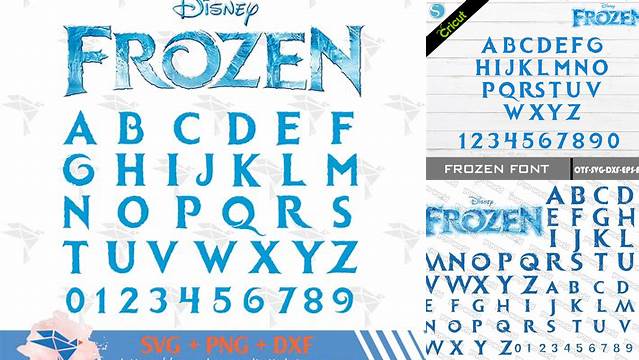
Hey everyone! Are you looking to add a magical, icy touch to your projects? Frozen Font SVGs are the perfect way to do it! Whether you're creating invitations for a winter-themed party, designing graphics for your website, or just want to add a bit of frosty flair to your crafts, we've got you covered. In this guide, we'll explore everything you need to know about Frozen Font SVGs, including where to find them, how to use them, and even some creative ideas to get you started. So, grab a cup of hot cocoa and let's dive in!
What is a Frozen Font SVG?
Let's start with the basics. What exactly is a Frozen Font SVG? SVG stands for Scalable Vector Graphics, which means these fonts are created using vector graphics. Unlike traditional raster images (like JPEGs or PNGs), SVGs can be scaled to any size without losing quality. This makes them perfect for everything from small web icons to large print posters. But what makes a font "Frozen"? Well, these fonts typically have a design that evokes the feeling of ice, snow, and winter. Think of icy textures, snowflake accents, and elegant, flowing lines that resemble frozen crystals. Frozen Font SVGs are ideal for adding a wintry touch to your designs, and their scalability ensures they always look crisp and clear, no matter the size. Whether you're a seasoned designer or just starting out, understanding the nature of SVG fonts is crucial for leveraging their full potential.
Designing Winter-Themed Invitations with Frozen Font SVGs
Let's get into some specific project ideas, shall we? One fantastic use for Frozen Font SVGs is designing winter-themed invitations. Whether it's a holiday party, a winter wedding, or a Frozen-themed birthday bash, these fonts can add a touch of elegance and magic to your invitations. Start by choosing a Frozen Font SVG that fits the style of your event. A delicate, script-style font might be perfect for a wedding invitation, while a bolder, more playful font could be ideal for a children's birthday party. Next, consider the color palette. Cool blues, icy whites, and shimmering silvers are classic choices for winter themes. You can use these colors for the font itself, as well as for the background and any other design elements. Don't be afraid to get creative with embellishments too! Adding snowflake graphics, glitter accents, or even a touch of faux snow can really enhance the wintery feel. Remember to keep the text clear and easy to read, even with the fancy font. A good balance between style and readability is key to creating invitations that are both beautiful and informative. With Frozen Font SVGs, your invitations are sure to make a stunning first impression.
Creating Frozen-Inspired Birthday Banners Using SVGs
Speaking of birthdays, Frozen Font SVGs are also amazing for creating Frozen-inspired birthday banners. Imagine a banner that spells out "Happy Birthday" in a beautiful, icy font, complete with shimmering snowflakes and frosty accents. It's the perfect way to set the scene for a Frozen celebration! To make a birthday banner, start by selecting a Frozen Font SVG that's bold and easy to read from a distance. A sans-serif font with a slight icy texture can work wonders. Next, decide on the size of your banner and how many individual flags you'll need. You can use your design software to create the banner flags and arrange the letters of "Happy Birthday" across them. Consider adding some fun graphics, like snowflakes, snowmen, or even character silhouettes from the Frozen movie. Print out the banner flags on sturdy cardstock or photo paper for a professional look. You can then cut them out and string them together with ribbon or twine. For an extra touch of sparkle, try adding glitter to the font or the snowflake accents. A Frozen-inspired birthday banner made with Frozen Font SVGs is a fantastic way to personalize a party and make the birthday child feel extra special.
Personalizing Scrapbook Pages with Frozen Font SVGs
Scrapbooking enthusiasts, this one's for you! Frozen Font SVGs can be a game-changer when it comes to personalizing your scrapbook pages. Whether you're documenting a winter vacation, a holiday gathering, or just want to add a touch of frosty flair to your layouts, these fonts are a perfect choice. Use them for titles, captions, journaling, and any other text elements on your pages. When choosing a Frozen Font SVG for scrapbooking, consider the overall style and theme of your layout. A delicate script font might be ideal for a romantic winter scene, while a bolder font could work well for a playful snow day layout. Don't be afraid to mix and match different fonts to create visual interest. You can also play with different sizes and colors to make certain words or phrases stand out. In addition to text, Frozen Font SVGs can be used to create embellishments for your scrapbook pages. Try cutting out snowflakes, icicles, or other wintry shapes from cardstock or patterned paper using your cutting machine. These elements can add a dimensional touch to your layouts and tie everything together beautifully. With Frozen Font SVGs, your scrapbook pages are sure to tell a story that's both visually stunning and emotionally resonant.
Creating Custom Holiday Cards Using Frozen Fonts
Where to Find Inspiration for Your Frozen Font SVG Projects
Okay, you've got the fonts, you've got the tools, but maybe you're still feeling a little stuck for ideas. Don't worry, guys! Finding inspiration for your Frozen Font SVG projects is easier than you might think. The internet is a treasure trove of creativity, so let's explore some great resources. Start by browsing online design platforms like Pinterest and Behance. These sites are packed with amazing projects from designers and crafters around the world, and you're sure to find something that sparks your imagination. Search for terms like "Frozen themed designs," "winter typography," or "SVG font projects" to narrow down your results. Another fantastic source of inspiration is social media. Platforms like Instagram and Facebook are filled with photos and videos of creative projects, and you can even follow designers and crafters who specialize in Frozen or winter-themed designs. Don't forget to check out online craft blogs and tutorials. Many talented crafters share their tips, tricks, and project ideas online, and you might find a step-by-step guide for creating exactly what you're envisioning. Finally, don't underestimate the power of your own imagination! Sometimes the best ideas come from simply letting your mind wander and exploring different possibilities. Think about what you love about Frozen, what colors and textures evoke the feeling of winter, and what kind of projects you're most excited to create. With a little inspiration and a lot of creativity, you'll be crafting amazing Frozen Font SVG projects in no time!